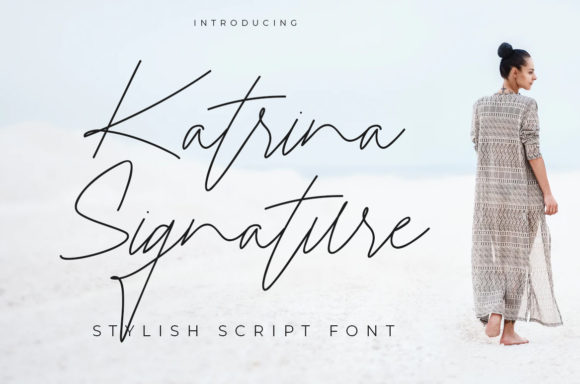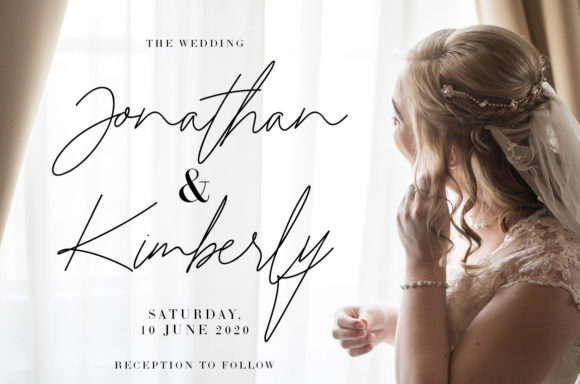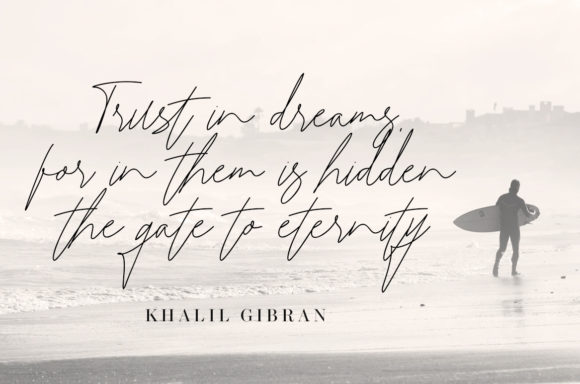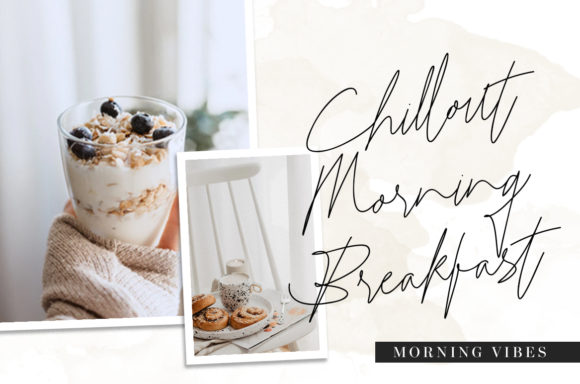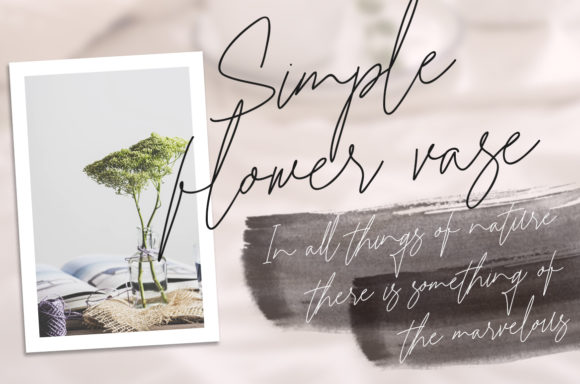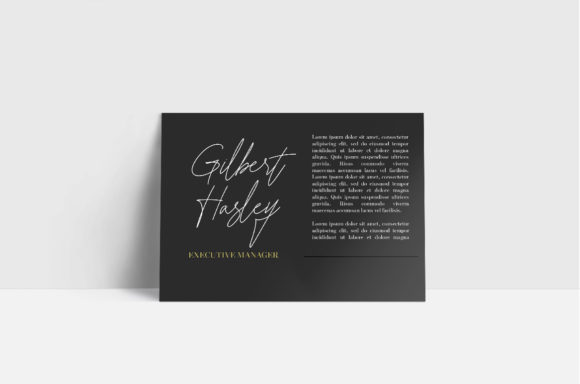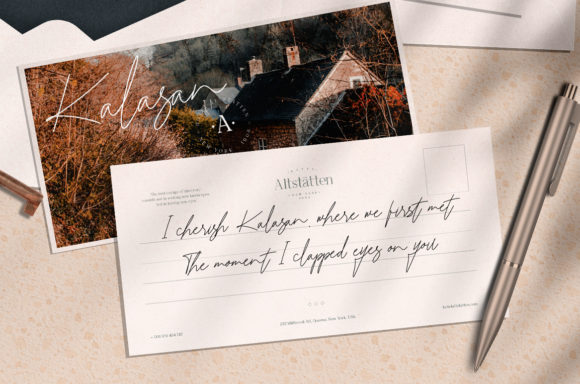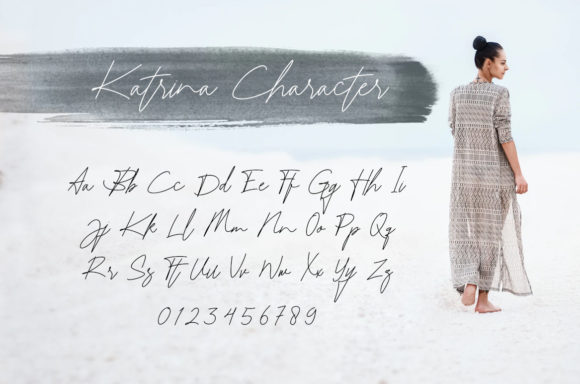
Katrina Signature Font
About Katrina Signature Font
Katrina Signature is a casual handwritten font with a natural feel. It’s perfect for logos, quotes, photography, wedding invitations, stationery and much more.